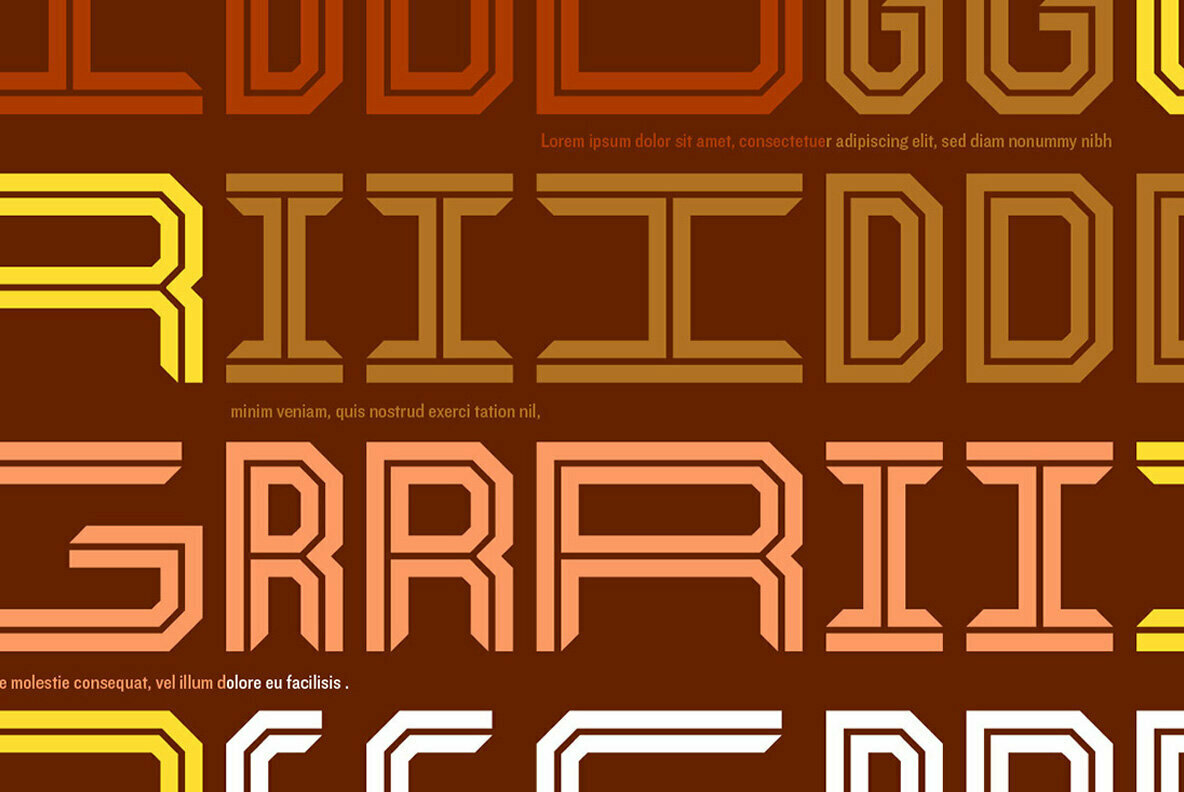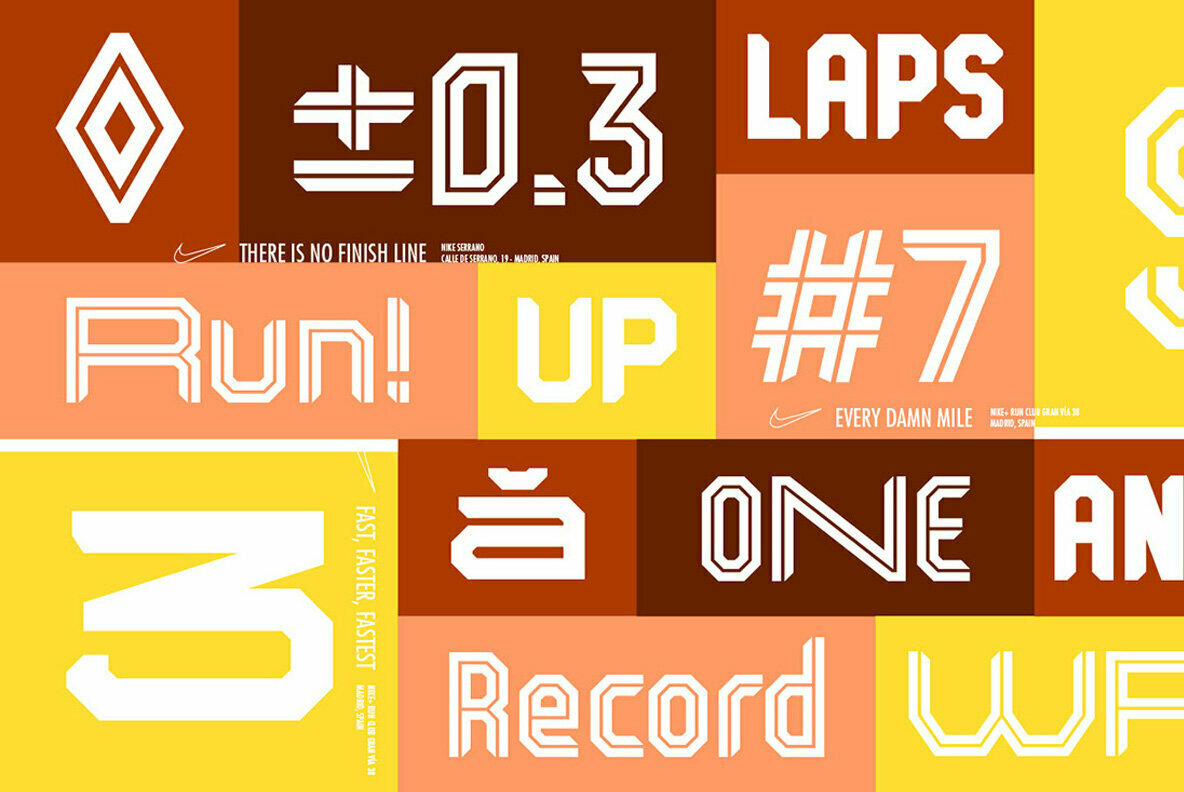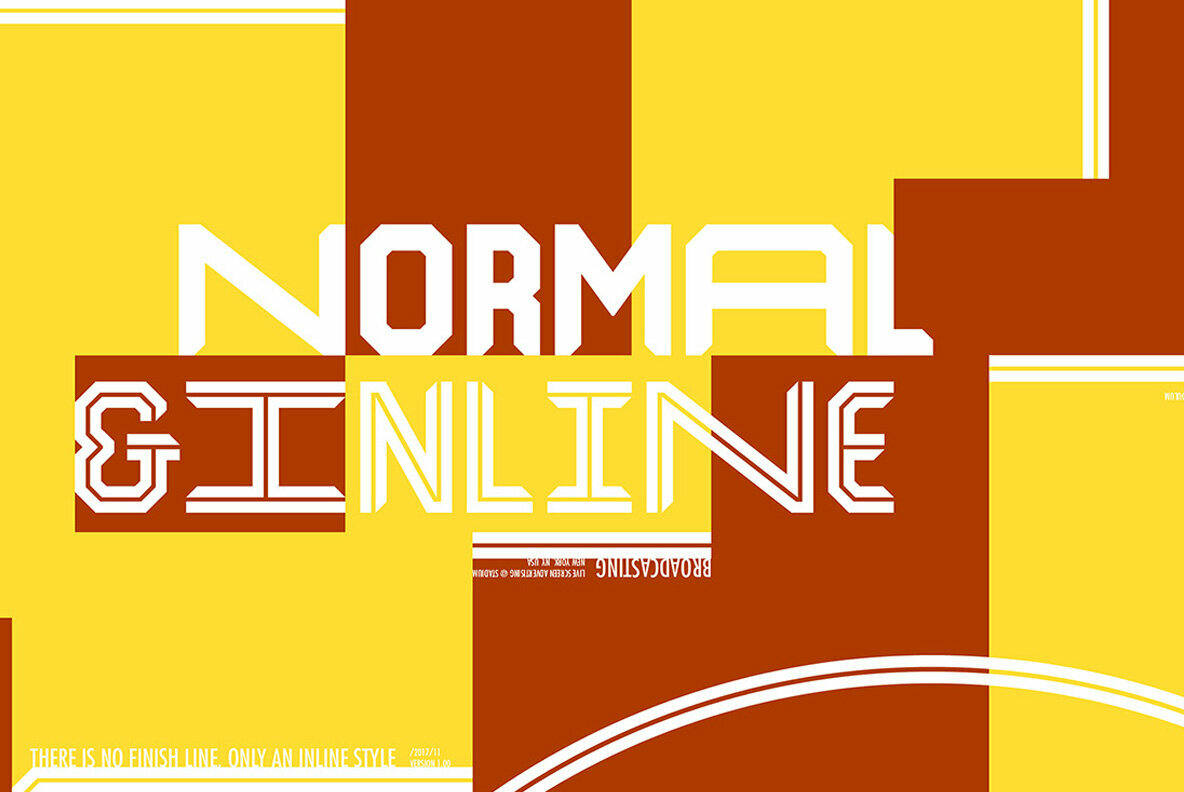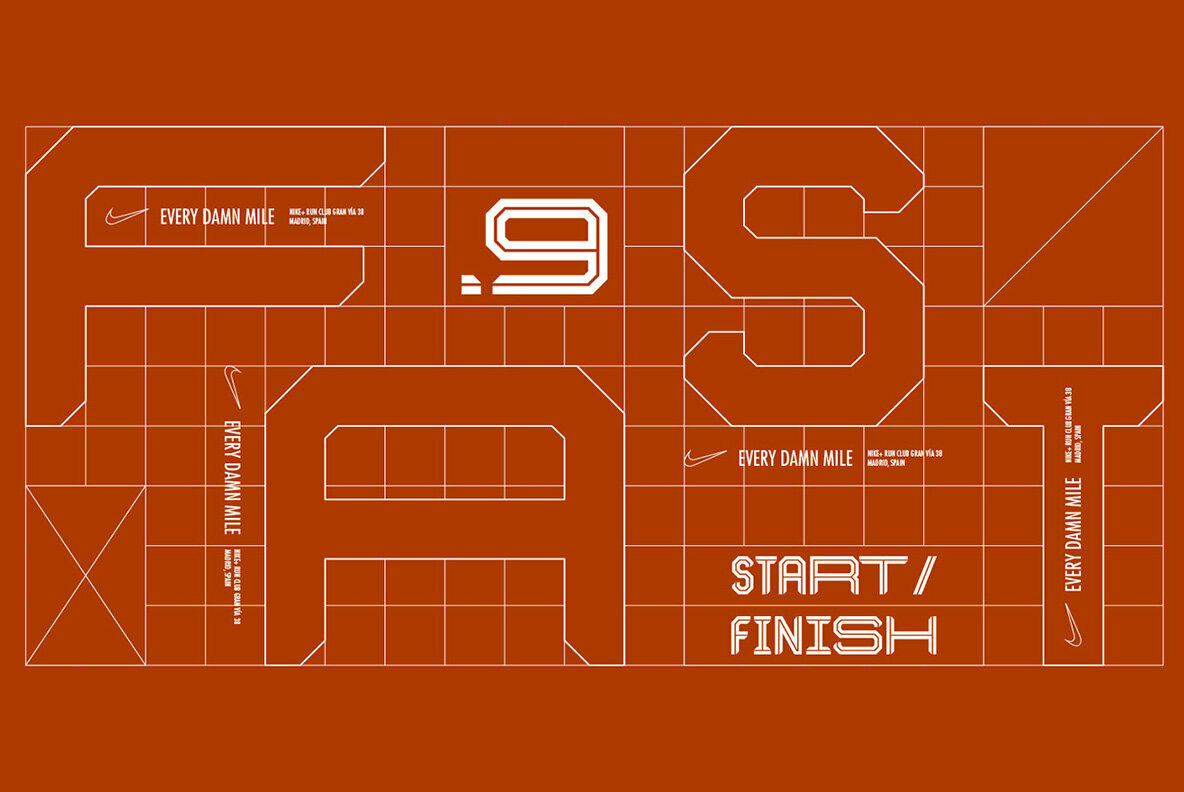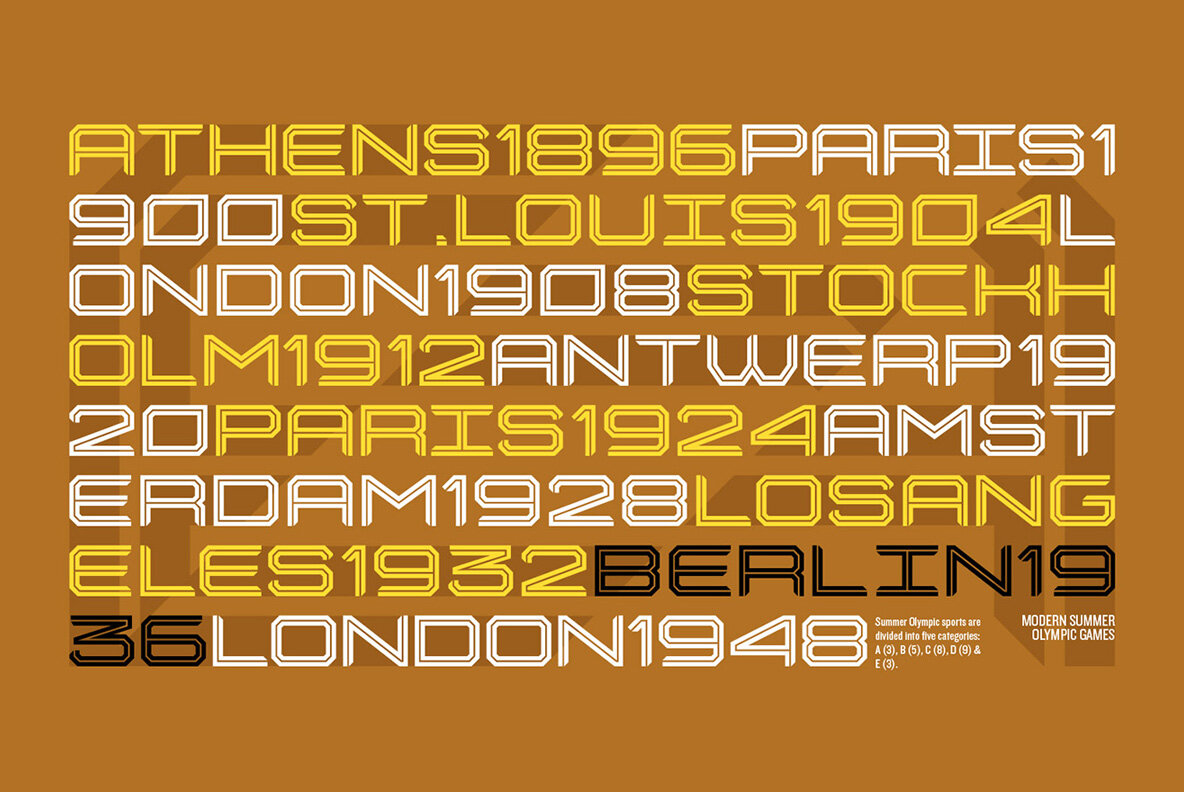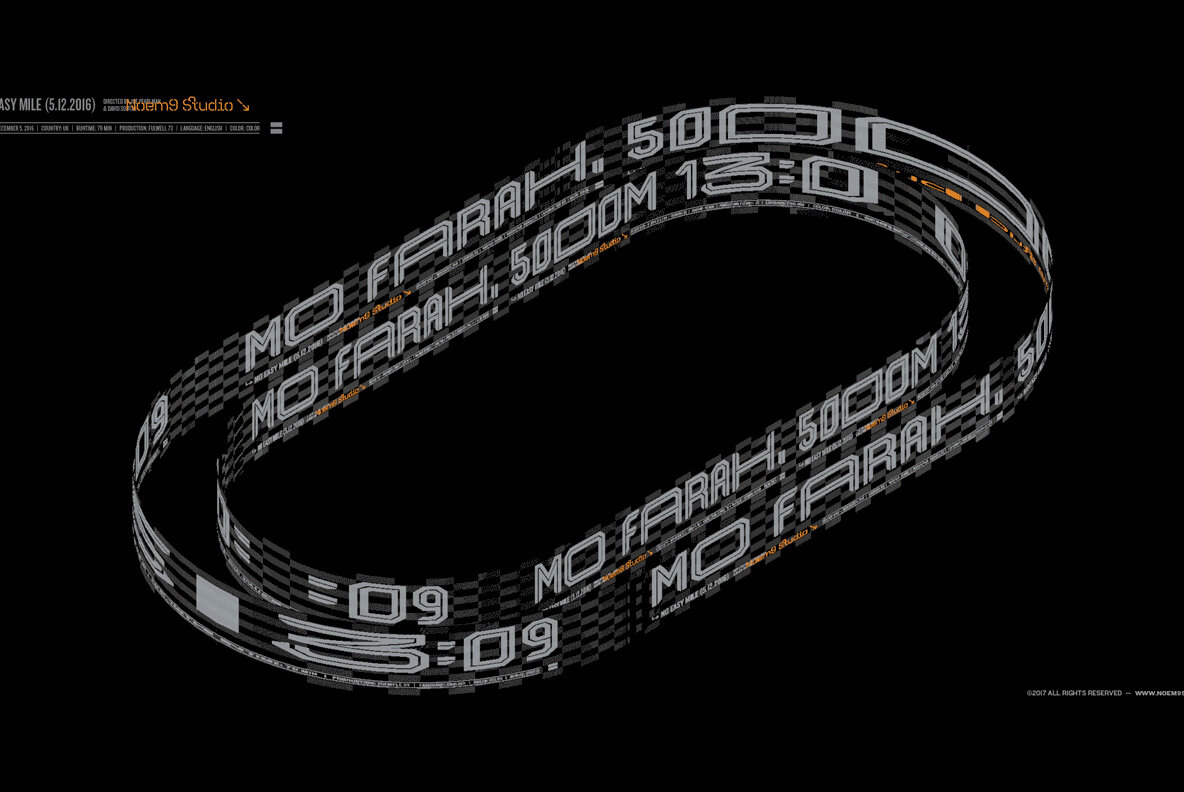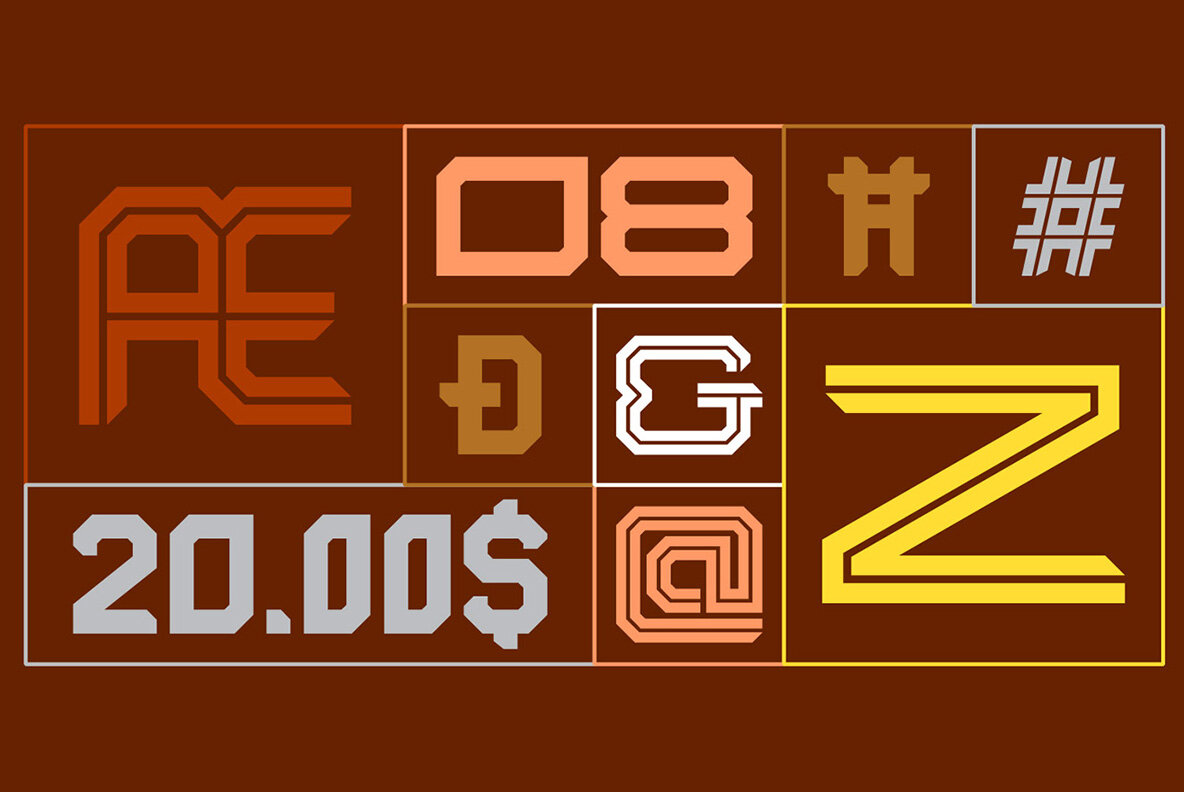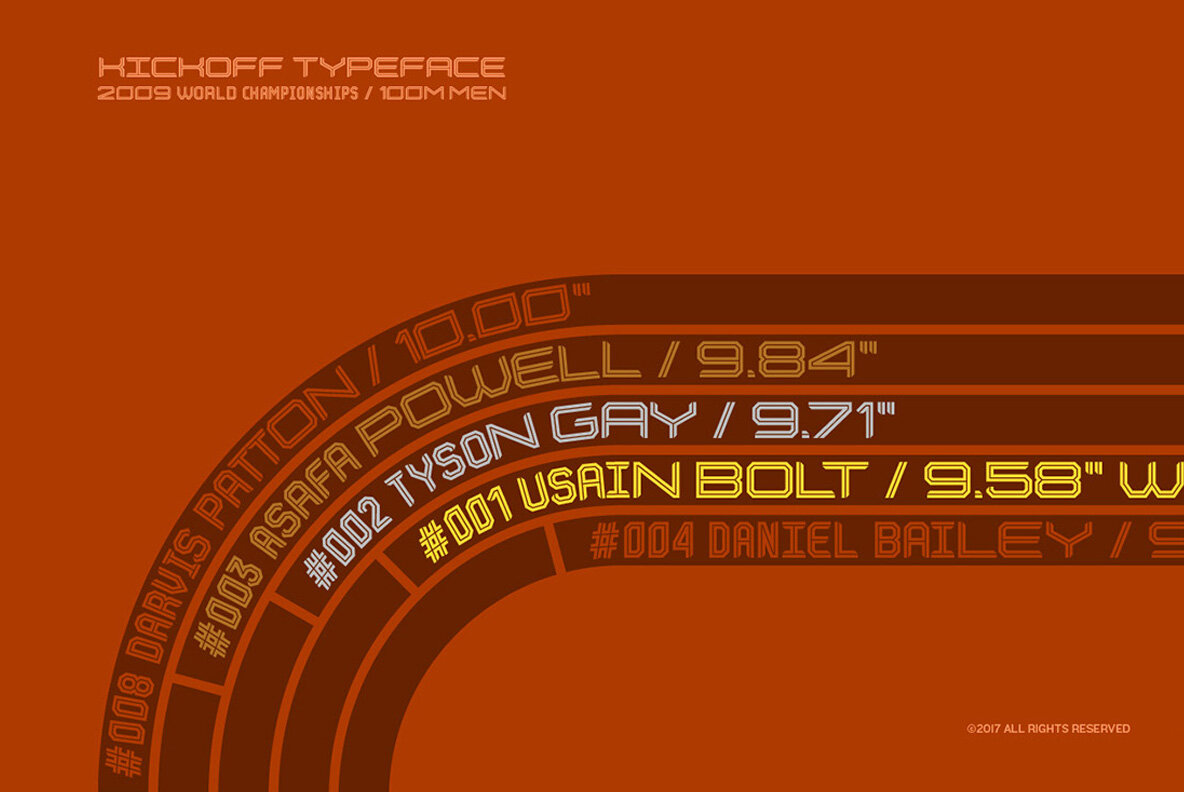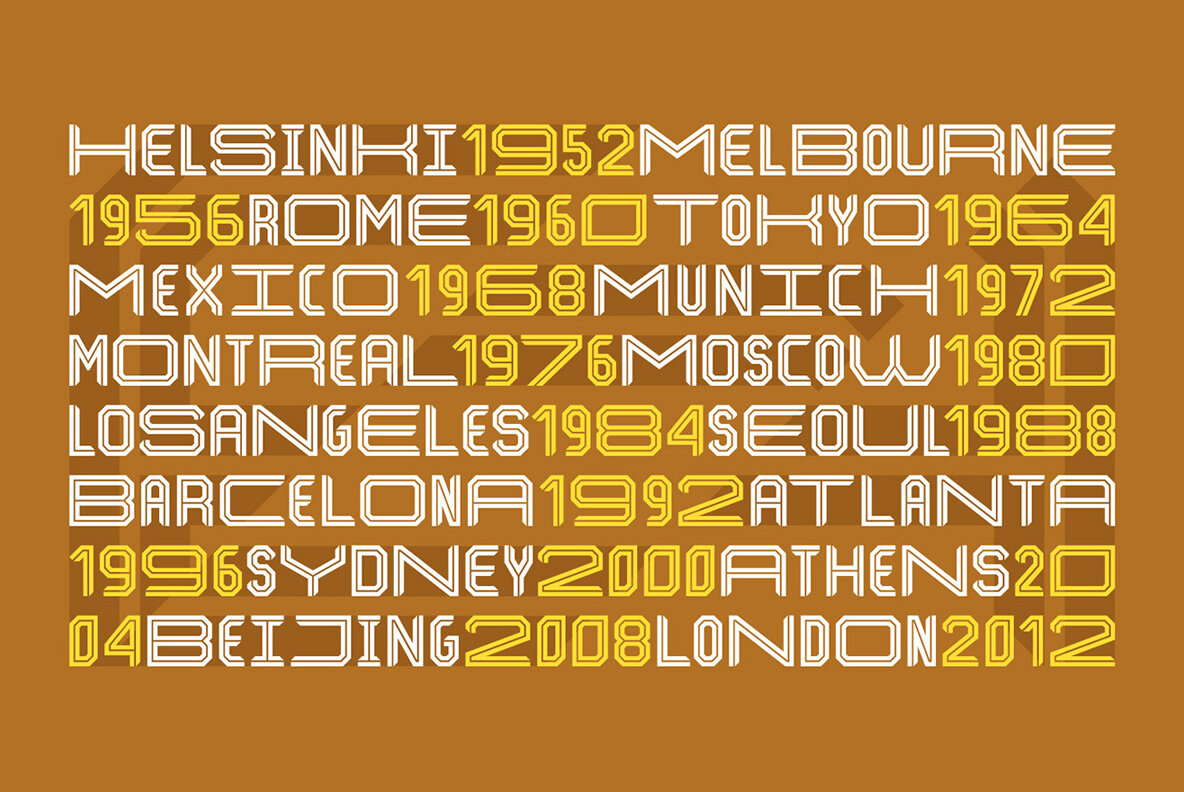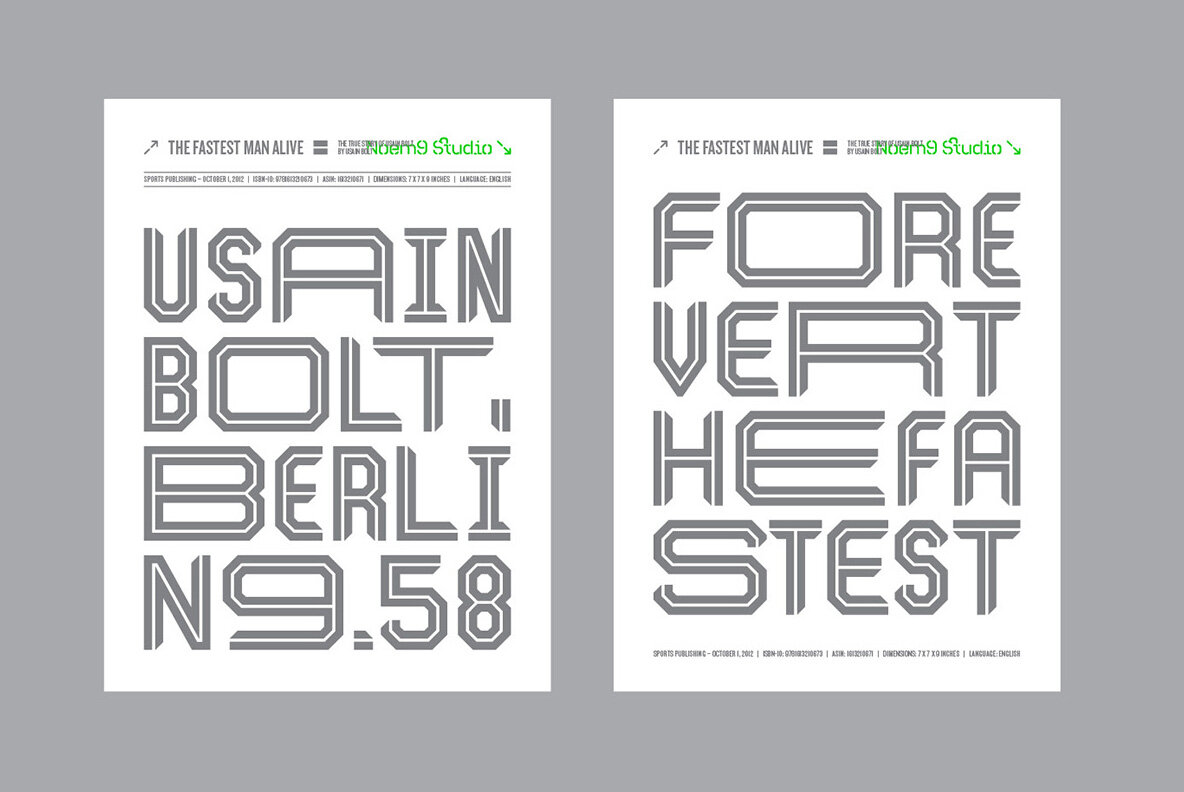
Kickoff Font
Kickoff is a display typeface with a geometric structure inspired by Sports graphics of the 70s. Its potential is increased with Normal & Inline styles which offer different moods. It comes in 3 different widths: Condensed, Regular & Wide that you can select depending on your needs.
- More than 500 Glyphs
- 2 Different Styles (Normal & Inline)
- 3 Different Widths (Condensed, Regular & Wide)
- International Characters